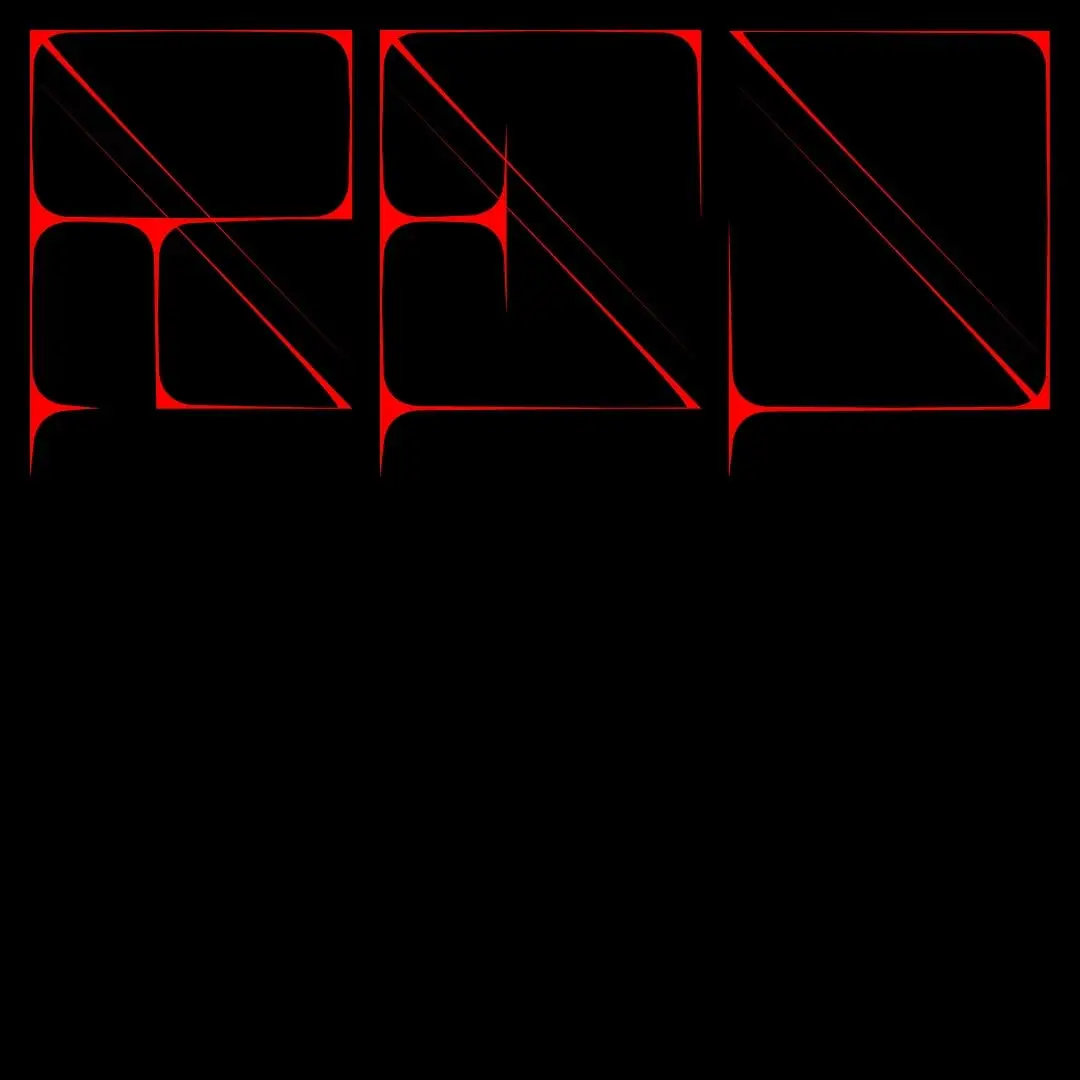
Red Typeface © Frédéric Jaman
The Red Typeface, designed by Frédéric Jaman, is a striking font that combines modern aesthetics with versatility. This typeface is perfect for a variety of applications, including branding, logos, web design, and print materials.
• Multiple weights for diverse design needs
Ideal for creating eye-catching headlines, promotional materials, and digital content that stands out.